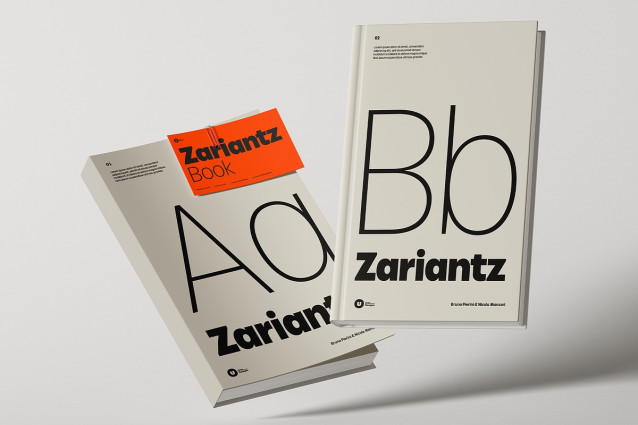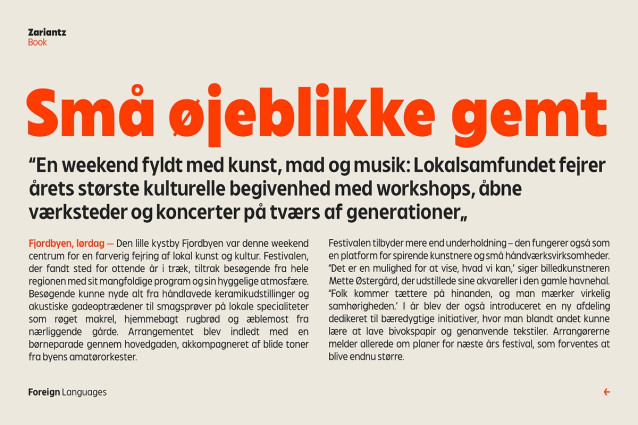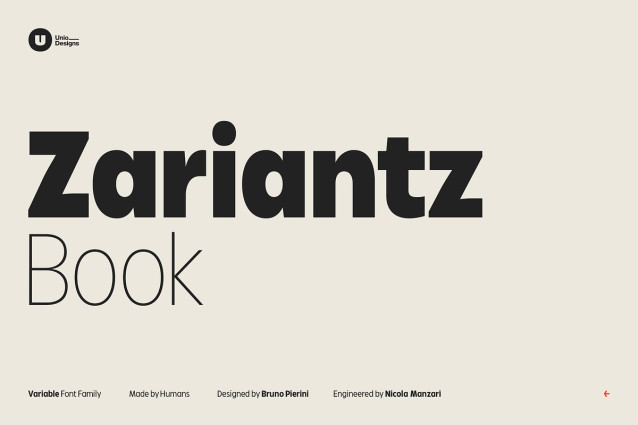
Zariantz Book Font
Zariantz Book Font is a versatile sans serif variable typeface designed for clarity, precision, and expressive detail. Built around a balanced “book” weight, it delivers a clean and contemporary voice suited for both editorial and digital environments.
Equipped with an advanced OpenType toolkit, Zariantz Book includes old-style figures, case-sensitive forms, alternate glyphs, ligatures, and full multilingual support. Designers can seamlessly set fractions with numerators and denominators (0–9), while a distinctive set of multidirectional arrows adds utility and character to complex layouts. Every feature is carefully crafted to ensure typographic excellence, making Zariantz Book not just a font, but a professional-grade type system—ready to adapt across branding, publishing, and interface design with confidence and flexibility.
This release expands the Zariantz type family, first introduced with Zariantz Grotesk Variable, a condensed contemporary sans serif inspired by the streets of Casamassima, Puglia. Where Grotesk offered narrow impact, Zariantz Book opens the rhythm—bringing balance, readability, and versatility to a growing, humanist-driven type system.